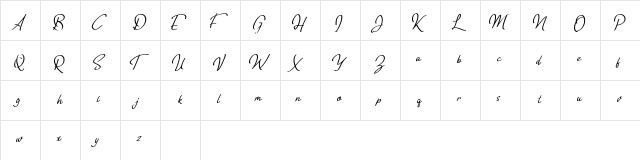
Tripolitania Regular
| Designer | Nico Muslib |
Design Context for Tripolitania Typeface
Tripolitania is a composed and adaptable typeface that performs quietly and consistently across a wide range of design contexts.